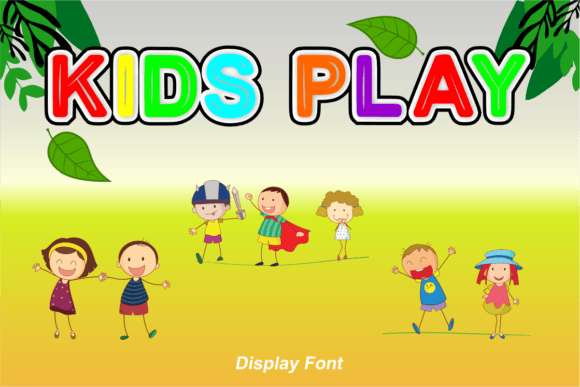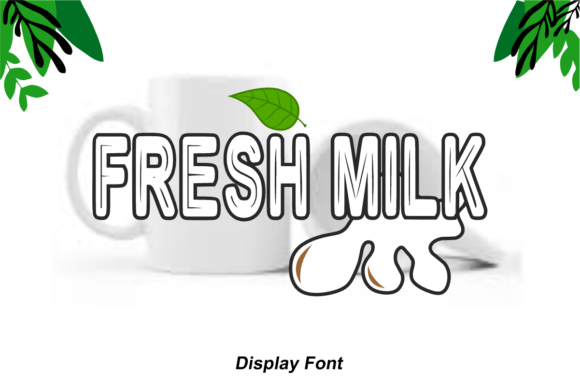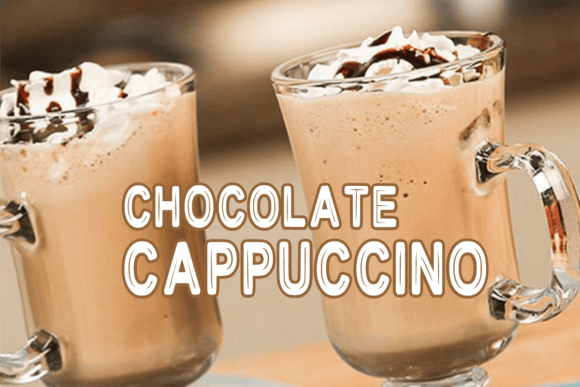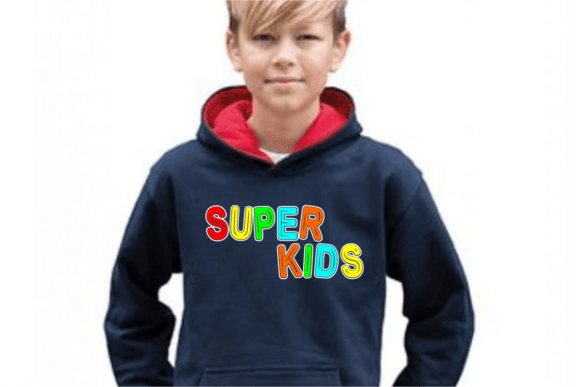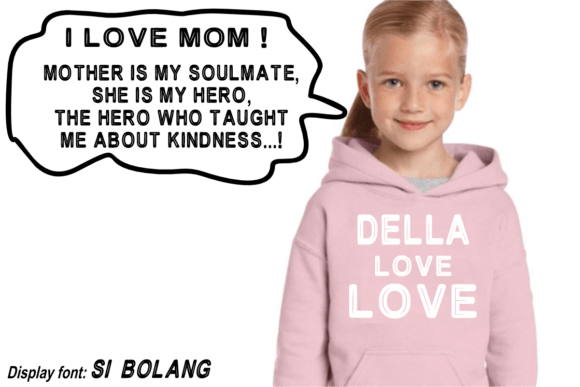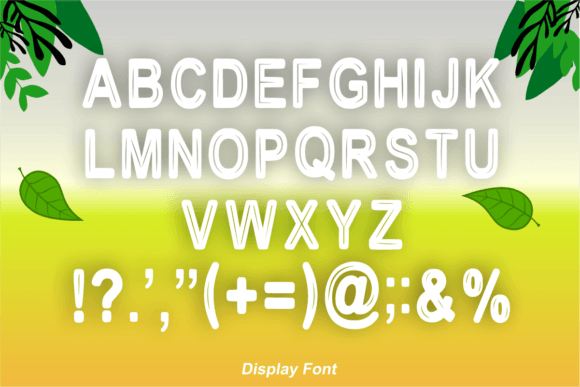
Introduction to Si Bolang Font
Well, we’ve got some exciting news for you! We’ve discovered a hidden gem that’s sure to elevate your designs: the Si Bolang Font. This clean and fresh display font is the perfect choice for any children’s activity or school project, and its playfulness and authenticity will make your designs shine.
Key Features of Si Bolang Font
- High-quality design with a unique and creative style, making it perfect for various design projects.
- Available in a transparent background, allowing for seamless integration with different design elements.
- Character size: 300 DPI, with a total of 500 glyphs, providing a wide range of characters for creative expression.
- Designed to be a versatile font, suitable for various design applications, from headings to body text.
Honest Review: Si Bolang Font
I recently stumbled upon the Si Bolang Font and I must say it’s a great addition to any designer’s toolkit. This free download offers a unique and elegant design that can elevate your creative project to the next level.
One of the things that works well with this font is its versatility. It’s perfect for both digital and print designs, and its high quality makes it a great choice for any design resource. The transparent background is also a nice touch, making it easy to use with any background image or color.
Here are some of the things I like about the Si Bolang Font:
- Unique and elegant design
- Perfect for digital and print designs
- High quality and transparent background
However, I do have a few limitations to mention:
- Limited font weights (only regular and bold)
- No italic or oblique styles available
- May not be suitable for very large or small text sizes
Overall, I’m really impressed with the Si Bolang Font. It’s a great addition to any designer’s toolkit and can help take your creative project to the next level. Just be aware of its limitations and use it accordingly.
Si Bolang Font
Si Bolang Font is a free download and a valuable design resource for creative projects. It’s perfect for adding a unique touch to your designs and can be used in a variety of contexts, from social media graphics to presentations and documents.
Getting the Most Out of Si Bolang Font
To get the most out of Si Bolang Font, experiment with different font sizes, colors, and alignments to find the perfect combination for your design. You can also use it in conjunction with other design elements to create a unique and eye-catching visual identity.